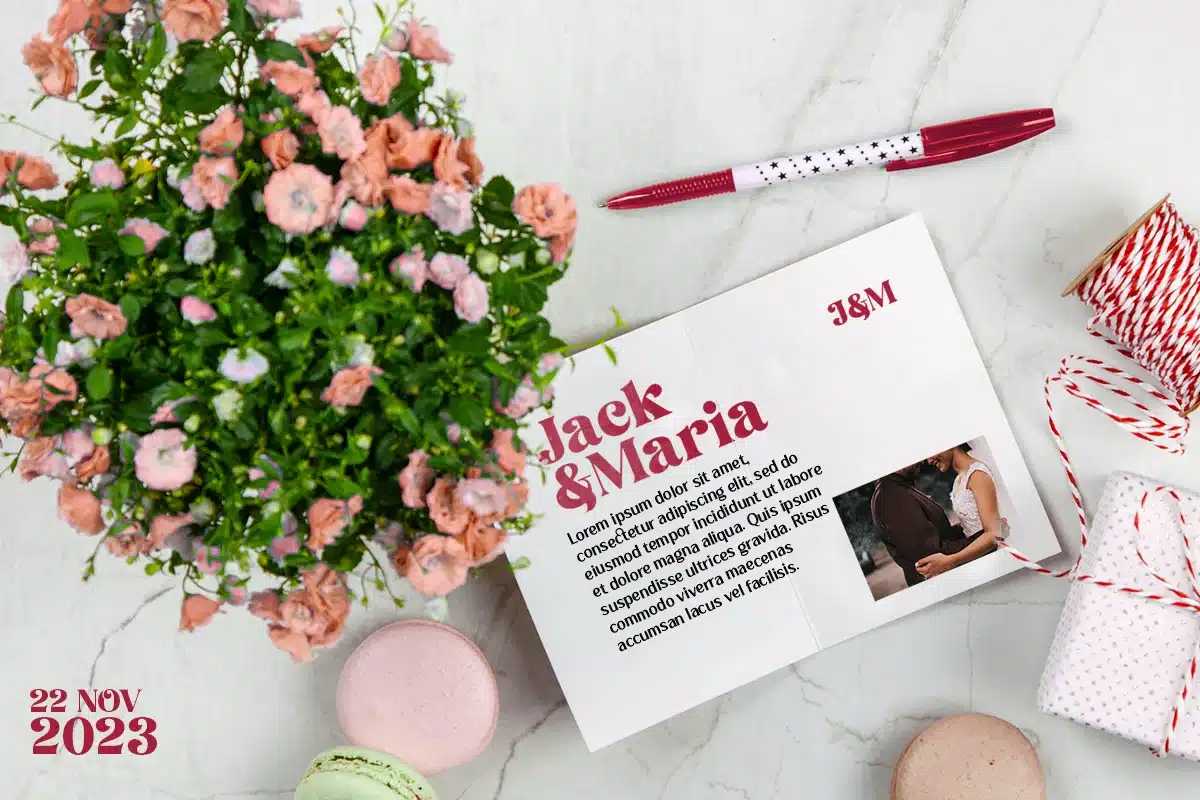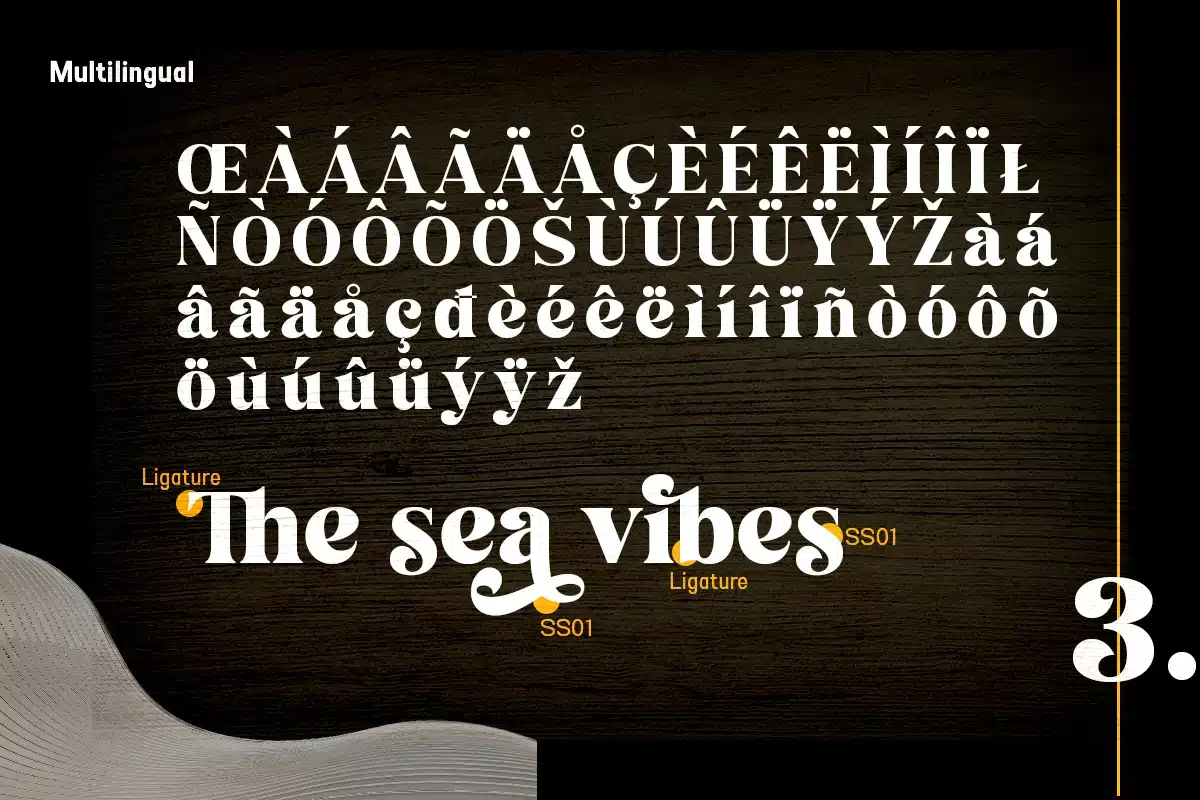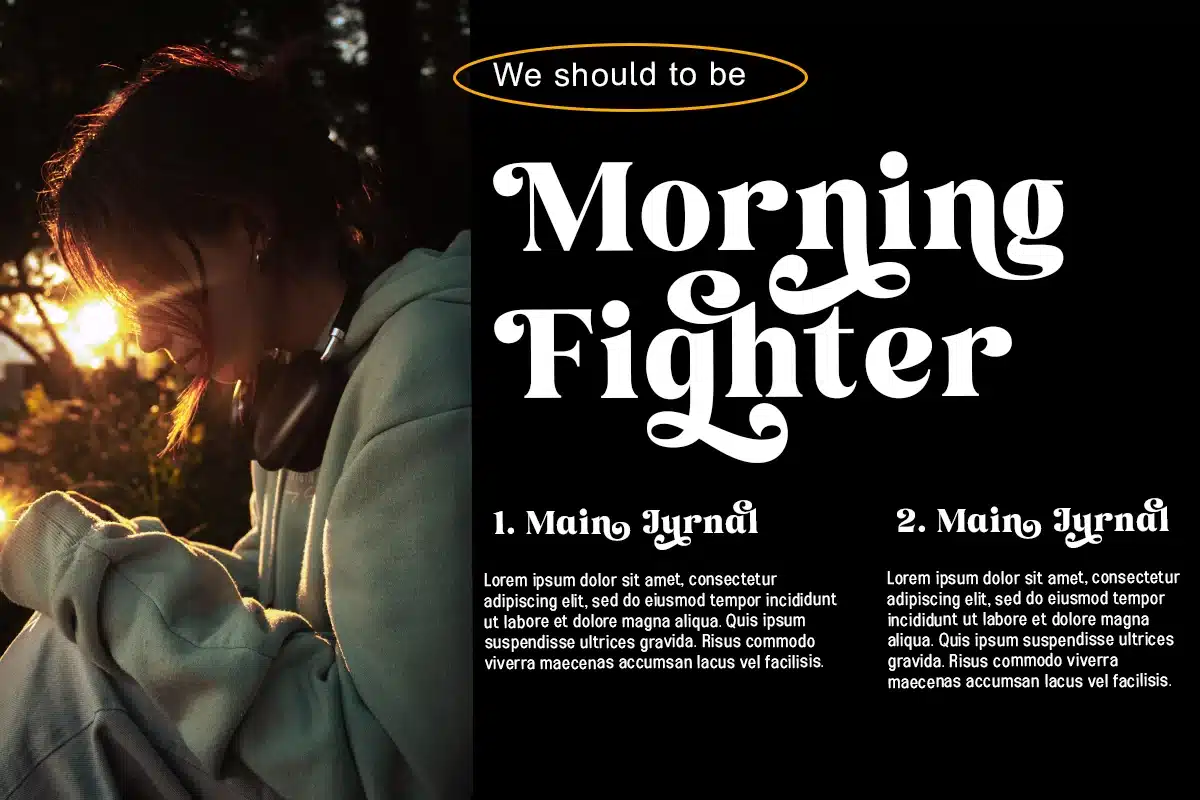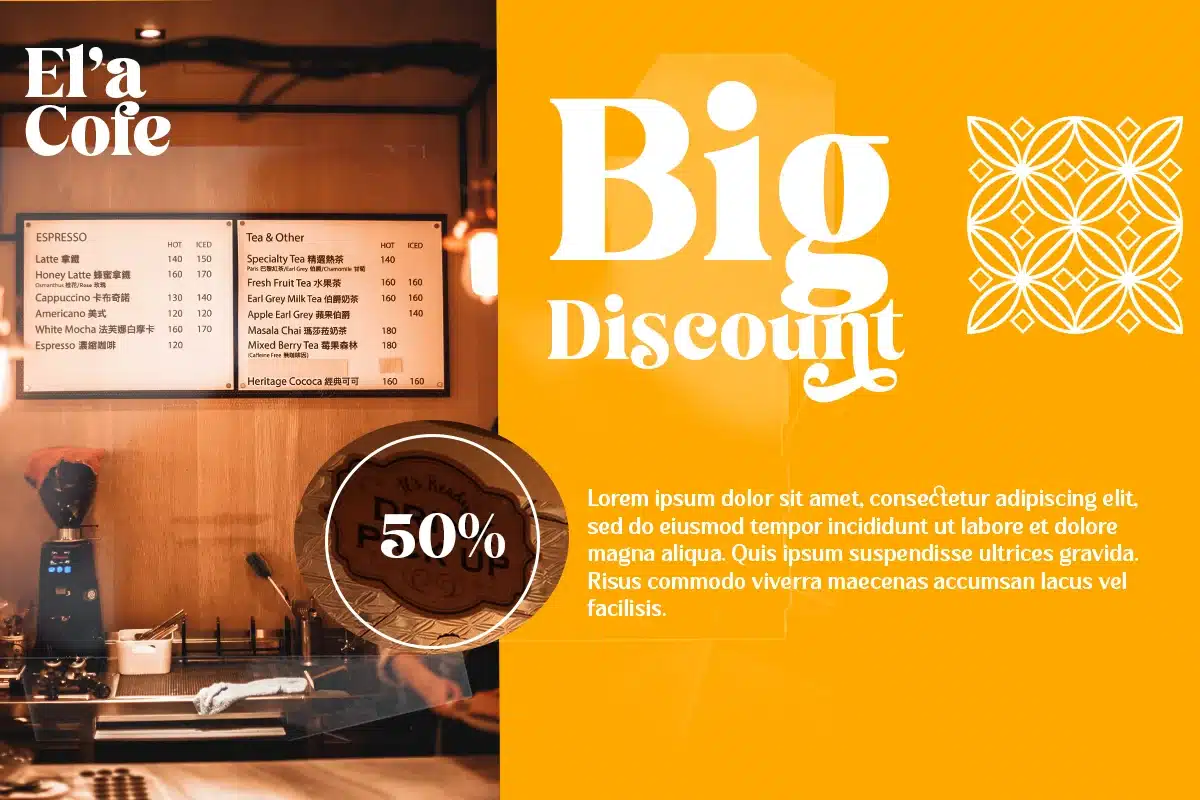
Ora Sepira is a retro, bold, and stylish serif font. No matter the topic, this font will be an incredible asset to your fonts’ library, as it has the potential to elevate any creation. This font is PUA encoded which means you can access all the glyphs and ligatures with ease!